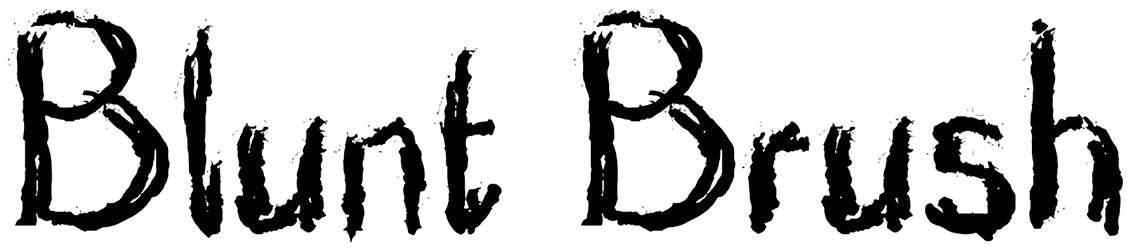
Blunt Brush Font
You wanna everyone to understand your horror theme by looking at it. Then give Blunt Brush a try to see how it works with that disturbing look; we think you will like the result.
Designed by: Royaltype